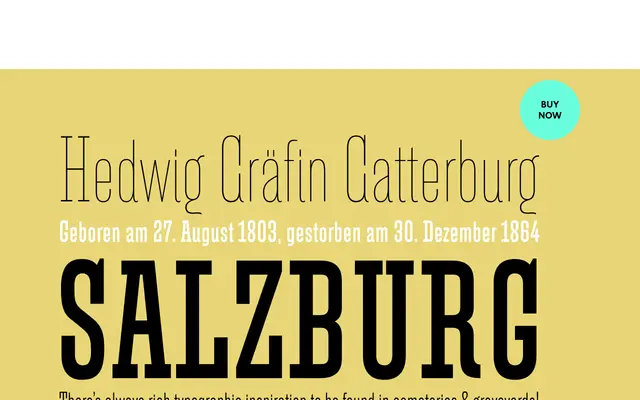
Gatterberg
A hybrid typeface drawn from a nineteenth-century Salzburg crypt inscription, pairing slab serif capitals with a sans serif lowercase across four weights.
Nick Cooke derived Gatterberg from lettering on a family crypt in Salzburg, where he found slab serif capitals sitting alongside a sans serif lowercase, a combination he initially misremembered as a conventional serif. The four upright styles run from Thin to Bold with no italic, and the family includes small caps, alternates for G, J and g, and two stylistic sets. A variable font is bundled with the family pack, and language coverage spans West European, Central and East European, Baltic and Turkish scripts.
Gatterberg is explicitly classified as a hybrid typeface combining slab serif uppercase letters with sans serif lowercase, a combination unusual enough to place it in the display category rather than either slab or sans-serif alone.